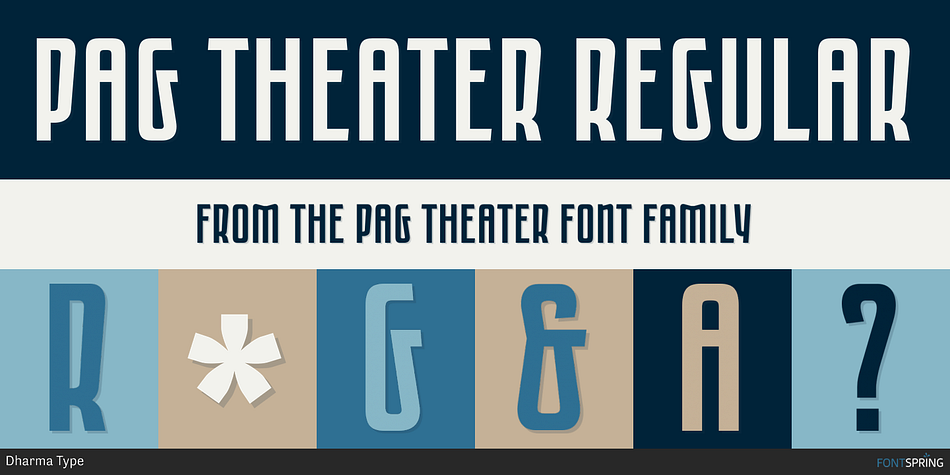
PAG THEATER REGULAR
PAG Theater is a retro font published by Dharma Type.
Prop-a-ganda offers retro-flavored fonts inspired by lettering found on vintage propaganda posters, classic advertisements, and retro packaging from around the world.
These typefaces capture the bold spirit and nostalgic charm of global mid-century design.
PAG Theater is narrow and monoline font, it definitely retrospective font, but it is also modern and contemporary. Perfect font for display, poster and logo.